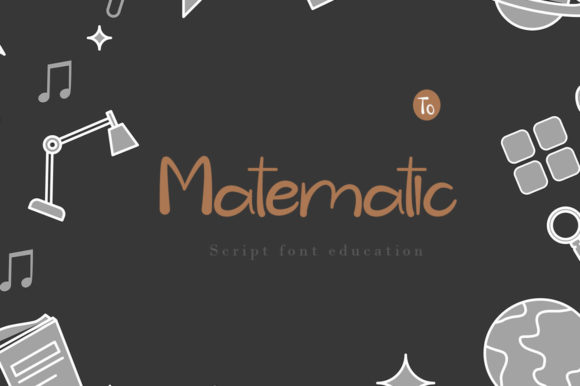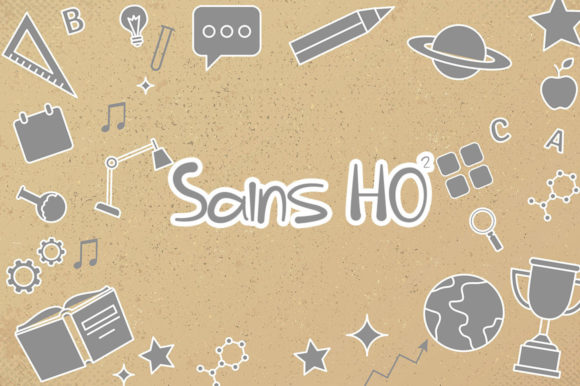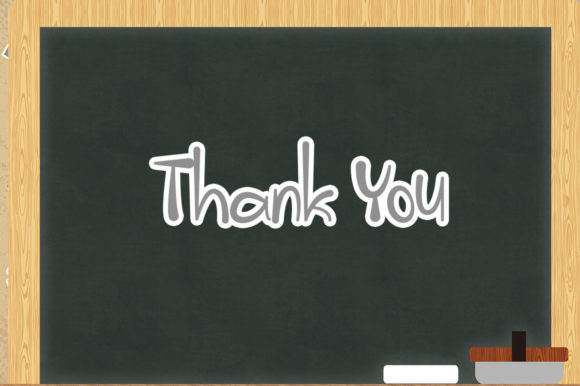
Get Ready to Learn with the Back to School Font
Have you ever been stuck on a design project, searching for the perfect font to bring your idea to life? We’ve all been there. It’s that moment of frustration, followed by a spark of inspiration as you stumble upon the perfect font to take your creation to the next level. For designers, finding that perfect font can make all the difference in a project’s success.
That’s where the Back to School Font comes in – a beautiful, handwritten font that’s sure to delight. This charming font is perfect for adding a personal touch to your designs, from greeting cards and invitations to educational materials and social media posts. With its unique, cursive style, the Back to School Font is a valuable asset to any designer’s library, offering endless possibilities for creative expression.
Back to School Font Key Features
- Unique Characteristics: Features a playful and modern design, with a mix of rounded and sharp edges, making it perfect for educational and creative projects.
- Font Styles: Includes regular, bold, italic, and bold italic styles, providing a range of options for users to choose from.
Back to School Font Review
As a designer, I was excited to dive into the “Back to School Font” and see what it had to offer. Here’s my honest review.
- The font’s playful and youthful vibe is perfect for creating a fun and energetic atmosphere.
- The varied character set includes a range of icons and graphics that can add a creative touch to designs.
- The font is highly customizable, allowing designers to adjust the size, color, and style to suit their needs.
- The font’s simplicity may make it difficult to use in professional or formal settings.
- The character set is not as extensive as some other fonts, which may limit its versatility.
- The font’s whimsical design may not appeal to all designers or audiences.
The “Back to School Font” is a fun and creative option for designers looking to add a playful touch to their work. While it may not be suitable for all projects, it’s a great choice for educational, marketing, or entertainment designs. With its customizable features and varied character set, it’s a solid addition to any designer’s toolkit.
The Back to School font is perfect for creating fun and playful designs for back to school themes, summer camps, and educational institutions.
Use it to create eye-catching posters, flyers, and social media graphics to promote your school or summer camp.
Also, use it to create engaging and interactive presentations for students and teachers.